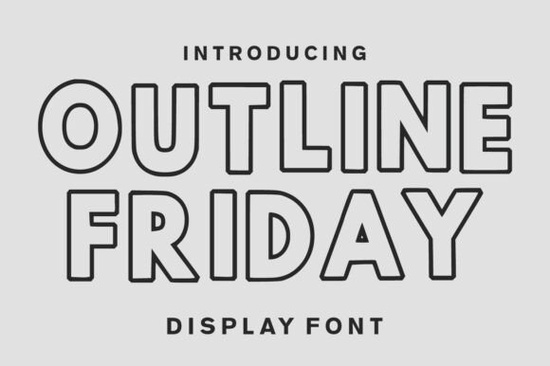
Looking for a bold, clean font that grabs attention without cluttering your design? Outline Friday is a modern display typeface with strong, minimalist outline shapes that work well across many creative projects. It’s especially effective when you need large headlines, logos, or packaging that stand out while still feeling polished and intentional.
What makes Outline Friday great for bold typography?
The font’s clean lines and consistent stroke width give it a balanced, professional look perfect for designs where clarity matters. Unlike some display fonts that feel busy or overly decorative, Outline Friday keeps things simple. The open letterforms make it easy to read at a distance, which is ideal for posters, banners, and t-shirt graphics.
It’s designed with versatility in mind. Whether you're going for a sleek modern vibe, a retro-inspired look, or something more artistic, this font adapts well. Its outline style adds visual interest without overwhelming the layout, making it a smart choice for branding, social media graphics, and print-on-demand items.
Where can you use Outline Friday?
- Posters and flyers: Use it for event announcements, concert promotions, or art show invites where bold text helps draw eyes.
- Logo design: Pair it with a solid-color background or subtle texture to create a memorable brand identity.
- T-shirt and apparel printing: Great for streetwear, band merch, or themed clothing lines.
- Packaging and labels: Works beautifully on product boxes, bottles, or gift wrap with a minimal yet striking presence.
- Website headers and banners: Perfect for landing pages or digital ads needing instant impact.
If you’re into crafting or small business branding, this font fits right in. It’s not just about looking good it’s about communicating clearly and confidently.
How does it compare to other popular display fonts?
While styles like Shiny Christmas lean into festive themes and Fast Rogue brings a gritty, urban edge, Outline Friday sits in a cleaner space. It’s less flashy than those options but more versatile for everyday design needs. If you want something that feels current but timeless, it’s a solid pick.
For contrast, consider how Vintage Cowboy embraces Western flair or Thankful leans into warm, hand-drawn charm. Outline Friday doesn’t mimic any single trend it stands on its own as a modern, neutral powerhouse.
Why designers choose this font for professional work
One of the strengths of Outline Friday is how well it scales. Whether you’re designing a 4-inch logo or a 10-foot banner, the outlines remain crisp and readable. That consistency is key when working on multiple formats or sizes.
It also works well with color. Try it in black on white for maximum contrast, or experiment with colored outlines on dark backgrounds. You can even pair it with simpler sans-serif fonts for body text to keep the focus on the headline.
Final thoughts: Is Outline Friday right for your next project?
If you need a bold, clean, and flexible display font that doesn’t overcomplicate your design, yes this one fits. It’s reliable, easy to use, and works across many industries and platforms. Whether you’re designing for a client, selling prints online, or creating personal art, it delivers clear results without extra effort.
Try it alongside other fonts from the same platform to see how it layers with different styles. For example, pairing it with a soft script or a geometric sans-serif can add depth to your layouts.